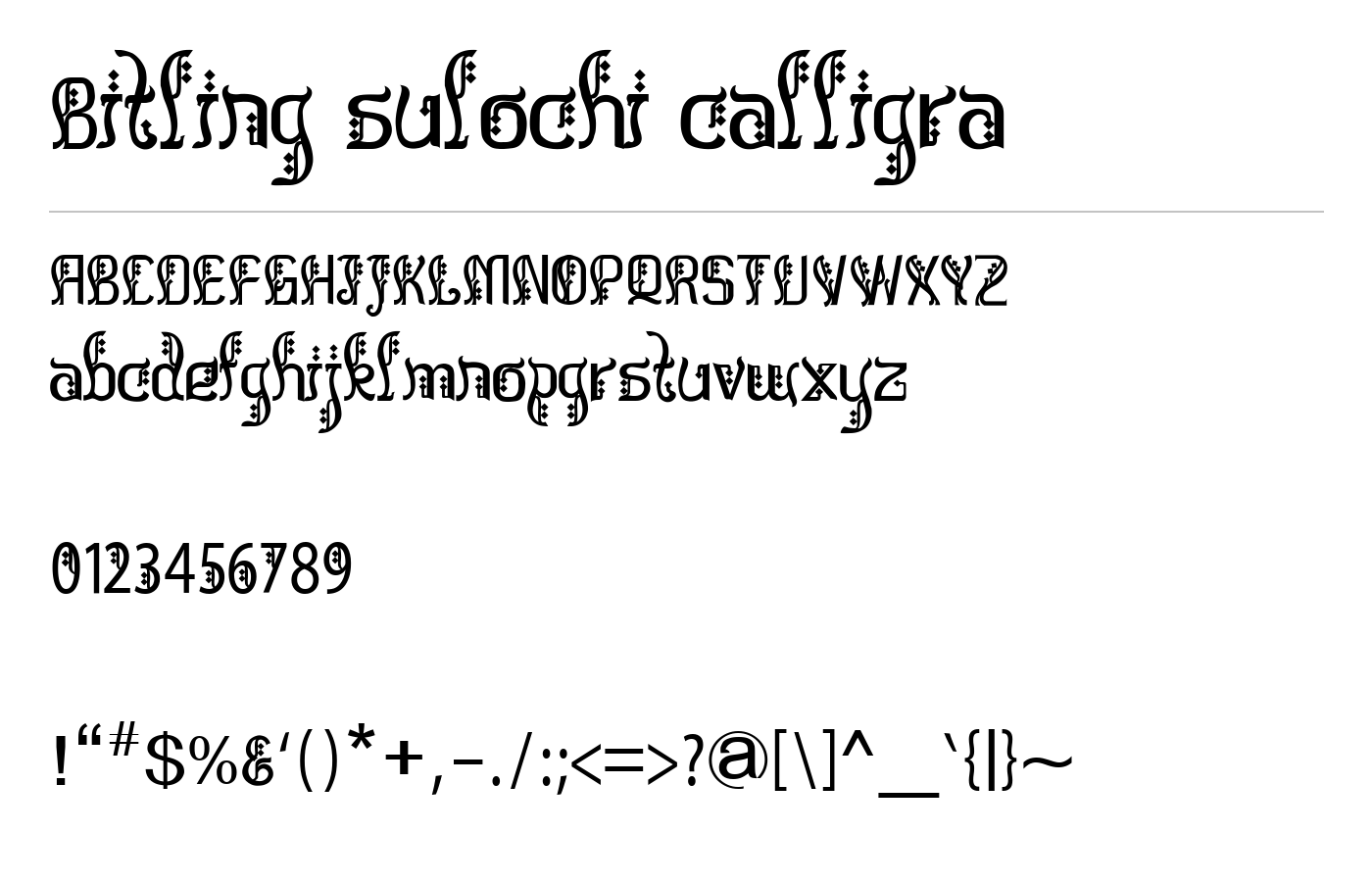
Bitling Sulochi Calligra is a unique decorative serif font that combines sharp, intricate stroke details with a calligraphic flair. Its narrow, tall letterforms and high contrast between thick and thin lines give it an ornamental and somewhat gothic character, making it ideal for eye-catching logos, artistic posters, or luxury branding that seeks a dramatic, vintage-inspired look. This font’s elaborate style works best in display settings where its distinct personality can shine and add a creative edge.
Bitling sulochi calligra Font
About Bitling sulochi calligra Font